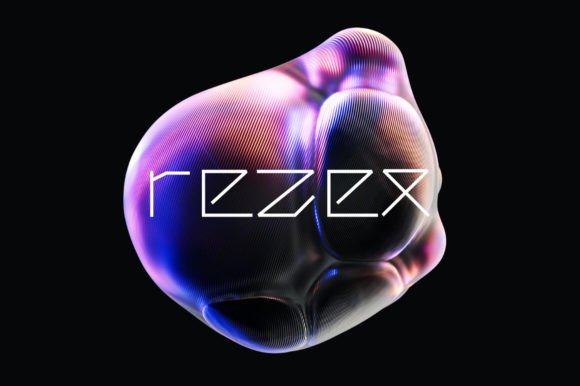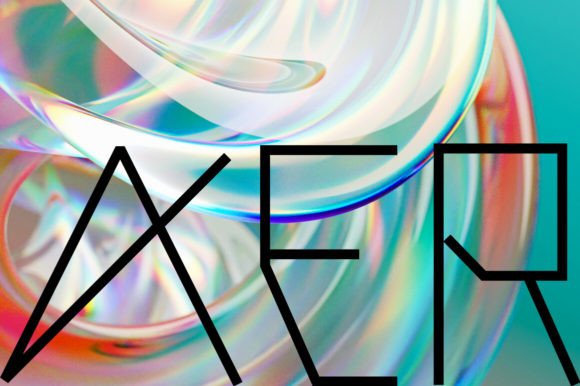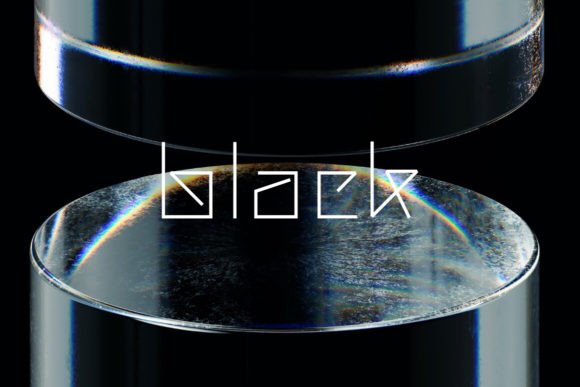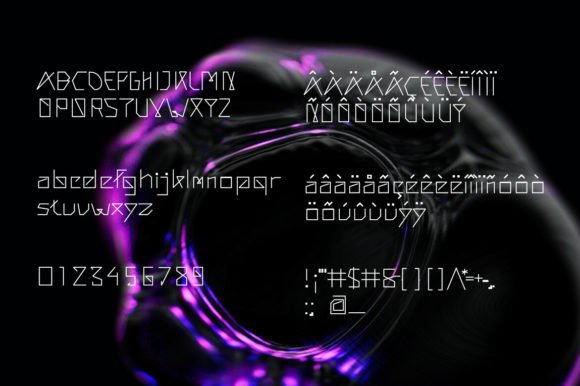
Introduction to Raxye Font
Have you ever found yourself stuck in a creative rut, desperately searching for the perfect font to bring your latest design project to life? I know I have. It’s that moment of frustration, scrolling through countless options, when you stumble upon something truly special – a font that not only elevates your work but also tells a story. For me, that moment arrived when I discovered the Raxye Font, a game-changing design resource that has revolutionized the way I approach my creative projects.
With its sleek, modern aesthetic and dynamic design elements, the Raxye Font is more than just a high-quality font – it’s a design resource that sets the tone for innovation and progress. Whether you’re working on a free download project or a commercial campaign, this font is sure to make a lasting impression.
Key Features of Raxye Font
- Unique, stylish font with a transparent background, perfect for adding a touch of elegance to your designs.
- Perfect for use in logos, branding materials, and other visual identity elements, thanks to its modern and sophisticated design.
Honest Review: Raxye Font
Here are some things that work well: ✨ High-quality characters and glyphs, ✨ Beautifully crafted ligatures, ✨ Extremely versatile for a wide range of creative projects, and ✨ Comes with a transparent background for seamless integration into any design.
While the Raxye Font is a solid choice, there are a few limitations to consider: ⚠️ Limited character set (although this may be a common issue with many free fonts), ⚠️ May not be suitable for professional or commercial use, and ⚠️ Some users may find the font’s unique style to be too playful or distracting.
Getting the Most Out of Raxye Font
To get the most out of Raxye Font, use it for high-quality, creative projects that require a unique and stylish look. You can also use it for designs with a transparent background to create a modern and sleek appearance.